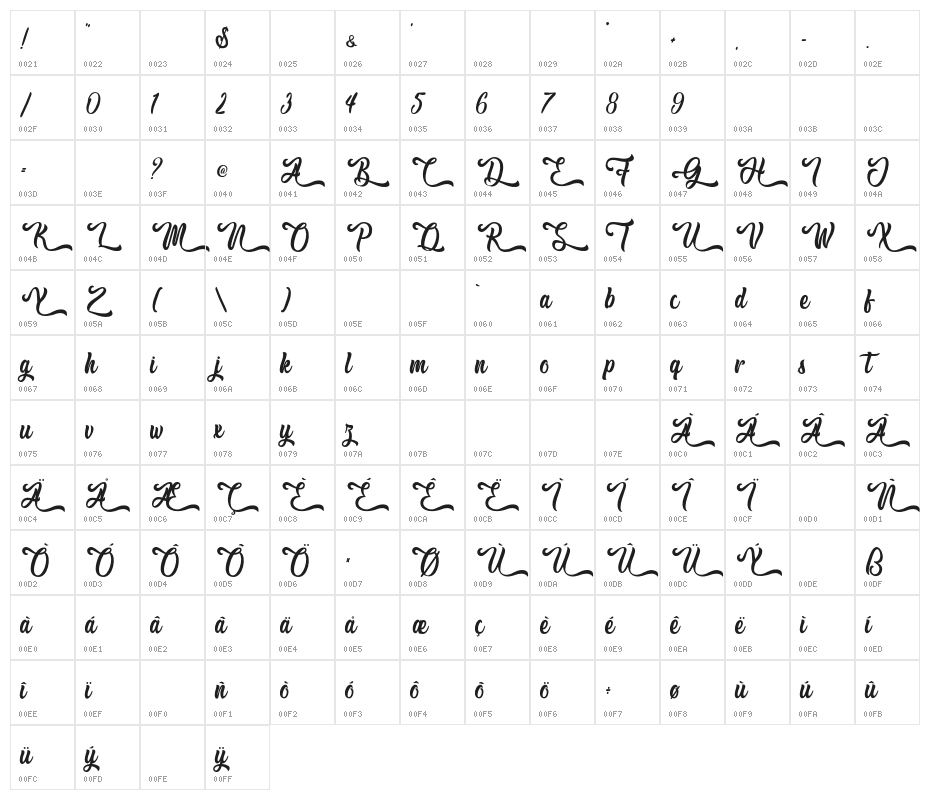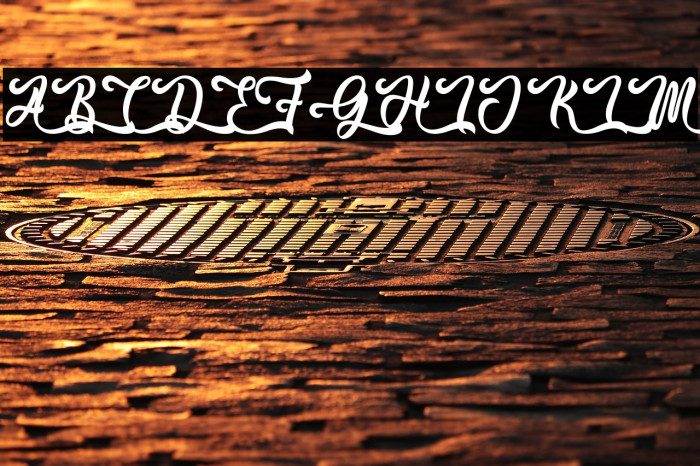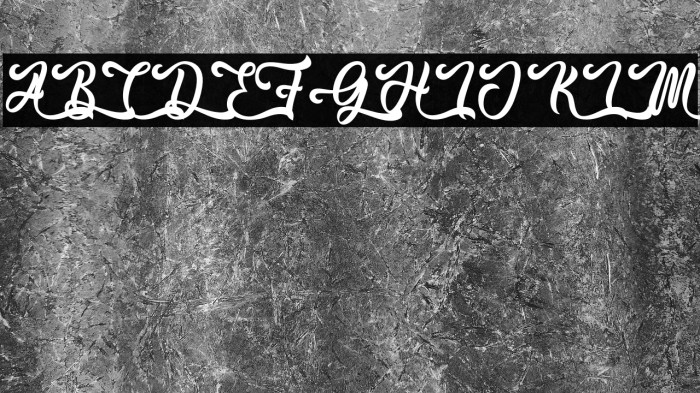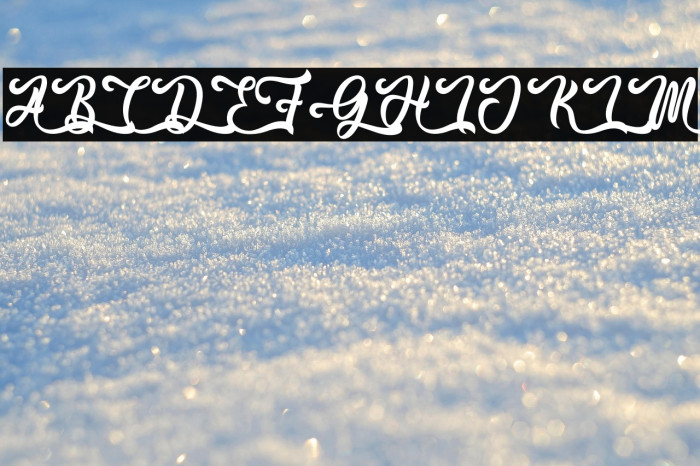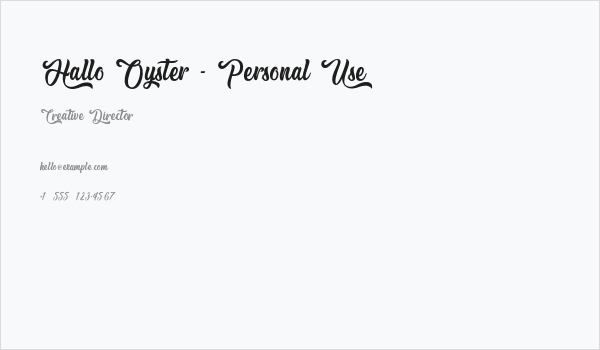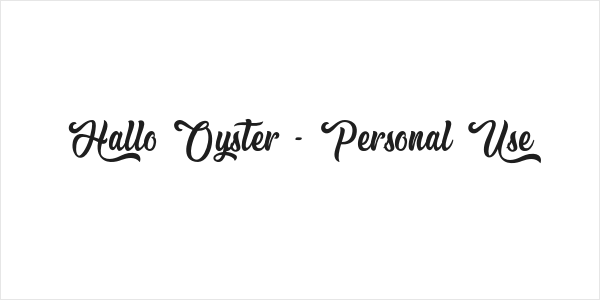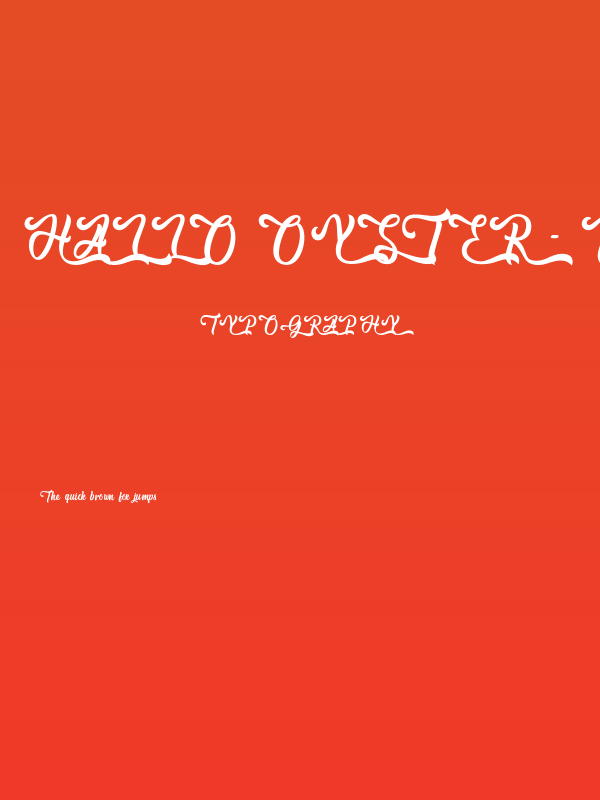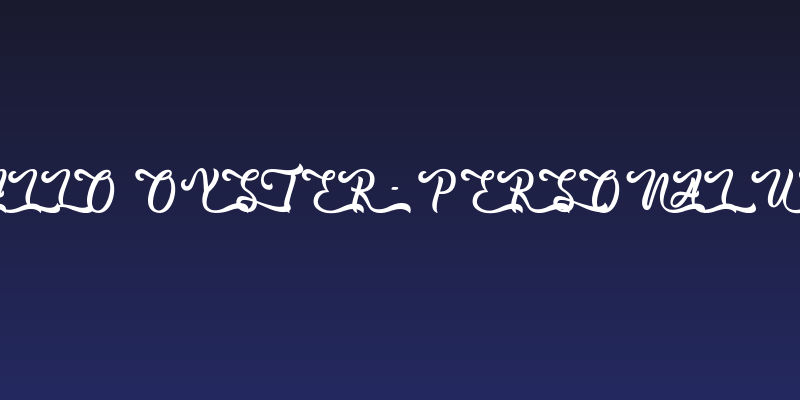
Hallo Oyster - Personal Use Font
Hallo Oyster - Personal Use Description
This font features a playful and whimsical script style, characterized by its flowing, cursive letters. The uppercase letters are bold and dynamic, with exaggerated loops and swirls that give a sense of movement and energy. The lowercase letters maintain a consistent style, with smooth curves and a slightly informal appearance. Numbers are designed to match the playful nature of the letters, with rounded edges and a lively feel. Special characters are integrated seamlessly, maintaining the overall aesthetic. This font is ideal for projects that require a touch of elegance and creativity, such as invitations, greeting cards, or branding materials.